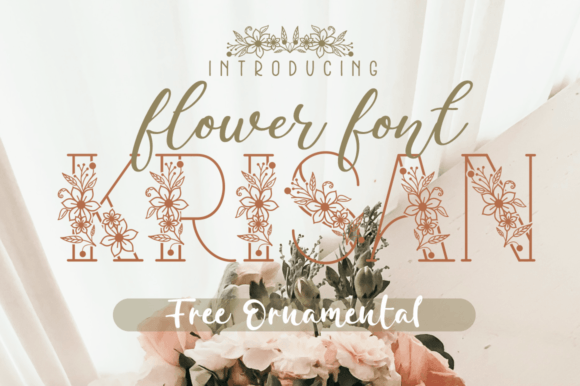
Looking for a font that will make your designs stand out from the crowd? Look no further than Krisan Font, the latest addition to our decorative font collection. Created by artype07, Krisan is inspired by the delicate beauty of wedding decoration flowers. Its sleek shape adds an impression of elegance and luxury to any design.
But Krisan isn't just a pretty face. It also comes with a bonus frame and crown ornament, perfect for creating beautiful logos or initials that are sure to impress. Whether you're a professional designer looking to elevate your brand or an amateur looking to add a touch of sophistication to your personal projects, Krisan is the perfect choice.
So why choose Krisan? For one, its unique design is sure to catch the eye and set your designs apart from the competition. But it's not just about looks - Krisan is also highly functional, with a variety of weights and styles to suit any project.